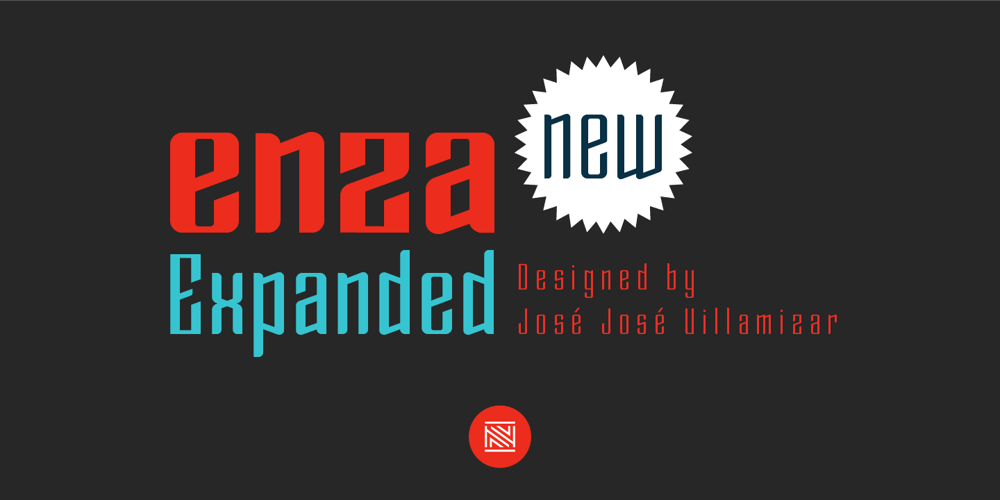
Enza Expanded Font Family was designed by José José Villamizar and published by Neo Type Foundry. Enza Expanded contains 9 styles and family package options. Designed by José José Villamizar, Enza Expanded is a display sans font family. This typeface has nine styles and was published by Neo Type Foundry. This font includes 8 OpenType features including Stylistic Alternates and Standard Ligatures making this font a great value. Enza Expanded has extensive Latin language support. Its design stems from the typographic exploration for conducting an identity aimed at entrepreneurs of the Millennial Generation, also known as Generation Y. Its use is recommended for titles, semicondensed texts or short, and elements of visual communication large phrases. It is also ideal for creating logos, in packaging, signboards and poster design.